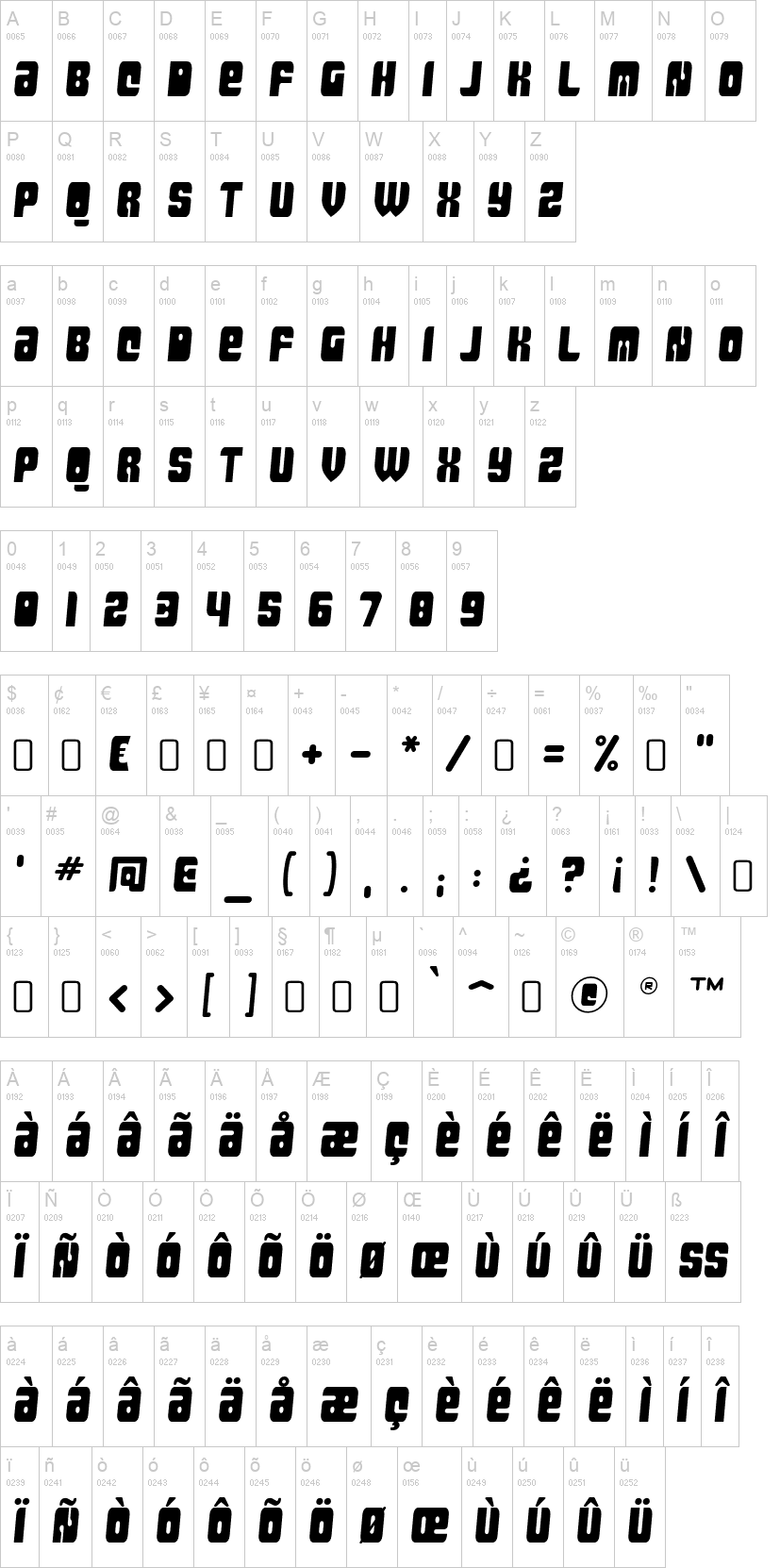
Note of the authorMassive Retaliation is a techno display typeface inspired by the 1990s. It's a hybrid of Arts and Crafts letterforms and a geometric, futuristic design. Some Latin-based European writing systems are supported, including the following languages. Afaan Oromo, Afar, Afrikaans, Albanian, Alsatian, Aymara, Basque, Bemba, Bikol, Breton, Cape Verdean, Creole, Catalan, Cebuano, Chamorro, Chavacano, Danish, Dawan, Dholuo, Dutch, English, Estonian, Faroese, Fijian, Filipino, Finnish, French, Frisian, Friulian, Galician, Genoese, German, Guadeloupean Creole, Haitian Creole, Hiligaynon, Icelandic, Ilocano, Indonesian, Irish, Italian, Jamaican, Kaqchikel, Kikongo, Kinyarwanda, Kirundi, Lombard, Low Saxon, Luxembourgish, Makhuwa, Malay, Ndebele, Neapolitan, Norwegian, Novial, Occitan, Papiamento, Piedmontese, Portuguese, Quechua, Rarotongan, Romansh, Sango, Saramaccan, Sardinian, Scottish Gaelic, Shona, Sicilian, Silesian, Slovak, Slovenian, Somali, Sotho, Spanish, Swahili, Swazi, Swedish, Tagalog, Tetum, Tshiluba, Tsonga, Tswana, Tumbuka, Uzbek (Latin), Venetian, Võro, Walloon, Waray-Waray, Wayuu, Xhosa, Yapese, Zapotec Zulu and Zuni.